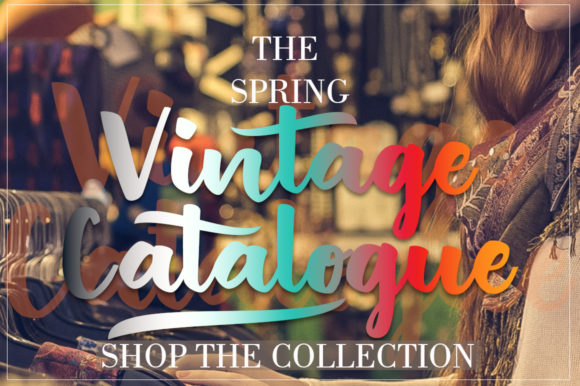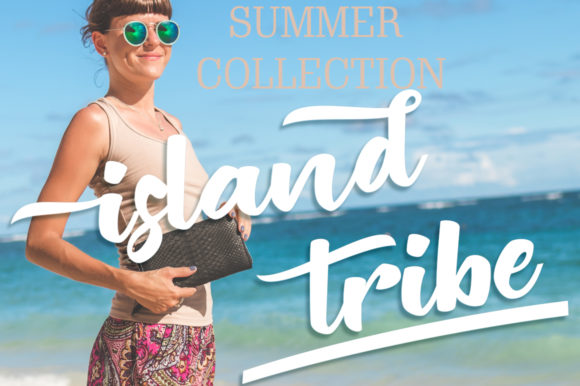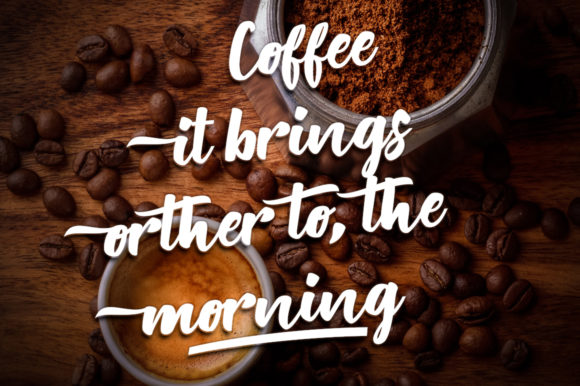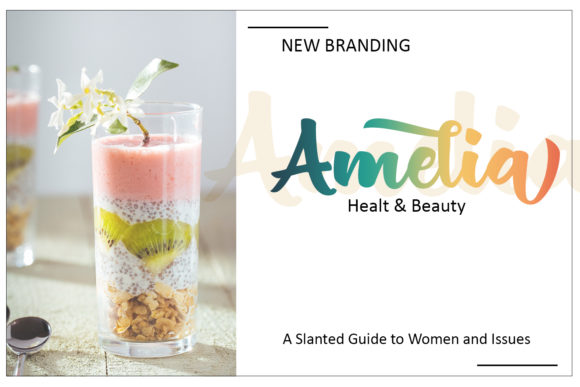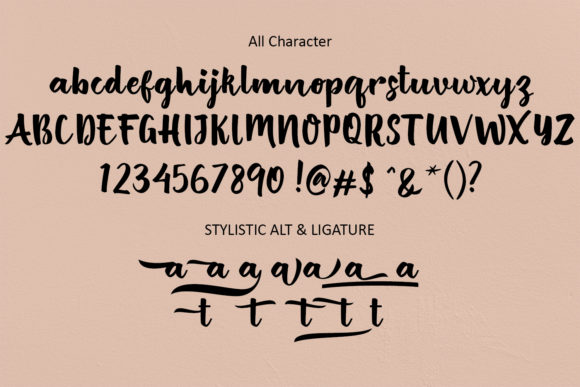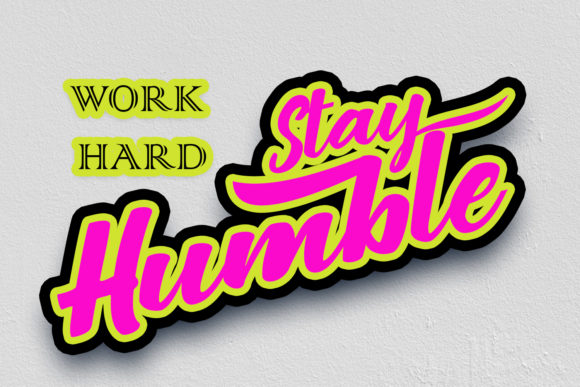
Discover the Charm of British Font: A Fun and Elegant Script
Are you a designer or crafter looking for a unique and captivating font to add to your creative projects? Look no further than the British Font, a stunning script that combines the elegance of traditional British typography with the playfulness of modern brush script. With its dry brush imperfections and bouncy baseline, this font is sure to bring a touch of whimsy and sophistication to any design.
What is British Font?
British Font is a beautifully crafted script font that draws inspiration from traditional British typography. Its distinctive features include dry brush imperfections, which give the font a delightfully handmade feel, and a very bouncy baseline, which adds a playful touch to the text. The result is a font that is both elegant and fun, making it perfect for a wide range of creative projects.
Key Features of British Script
- Dry Brush Imperfections: The British Font features dry brush imperfections that give the text a beautifully handmade feel. These imperfections add a touch of character to the font, making it perfect for designs that require a personal touch.
- Bouncy Baseline: The bouncy baseline of the British Font adds a playful touch to the text, making it perfect for designs that require a bit of whimsy. This feature also helps to create a sense of movement and energy in the text.
- Elegant and Fun: The British Font is both elegant and fun, making it perfect for a wide range of creative projects. Whether you’re designing a wedding invitation or a playful craft project, this font is sure to add a touch of sophistication and personality.
Uses for British Font
The British Font is a versatile script that can be used for a wide range of creative projects. Here are just a few ideas to get you started:
- Wedding Invitations: The elegant and playful features of the British Font make it perfect for wedding invitations. Add a touch of whimsy and romance to your wedding stationery with this beautiful script.
- Craft Projects: The British Font is perfect for craft projects that require a personal touch. Use it to add a touch of personality to your handmade cards, gift tags, and other craft projects.
- Branding and Packaging: The unique features of the British Font make it perfect for branding and packaging projects. Use it to add a touch of elegance and whimsy to your product labels, business cards, and other marketing materials.
Tips for Using British Font
Here are a few tips for using the British Font in your creative projects:
- Pair it with a Simple Font: The British Font is a statement font, so it’s best to pair it with a simple font that won’t compete with it. Try pairing it with a clean sans-serif font for a beautiful contrast.
- Use it in Moderation: While the British Font is beautiful, it can be overwhelming if used too much. Use it in moderation to add a touch of elegance and whimsy to your design.
- Experiment with Colors: The British Font looks beautiful in a variety of colors, so don’t be afraid to experiment. Try using it in bold bright colors or soft pastel shades to add a touch of personality to your design.
The British Font is a beautiful and versatile script that is perfect for designers and crafters looking to add a touch of elegance and whimsy to their creative projects. With its dry brush imperfections and bouncy baseline, this font is sure to bring a touch of personality to any design. Whether you’re designing a wedding invitation, a craft project, or branding materials, the British Font is a great choice. So why not give it a try and see the difference it can make in your designs?